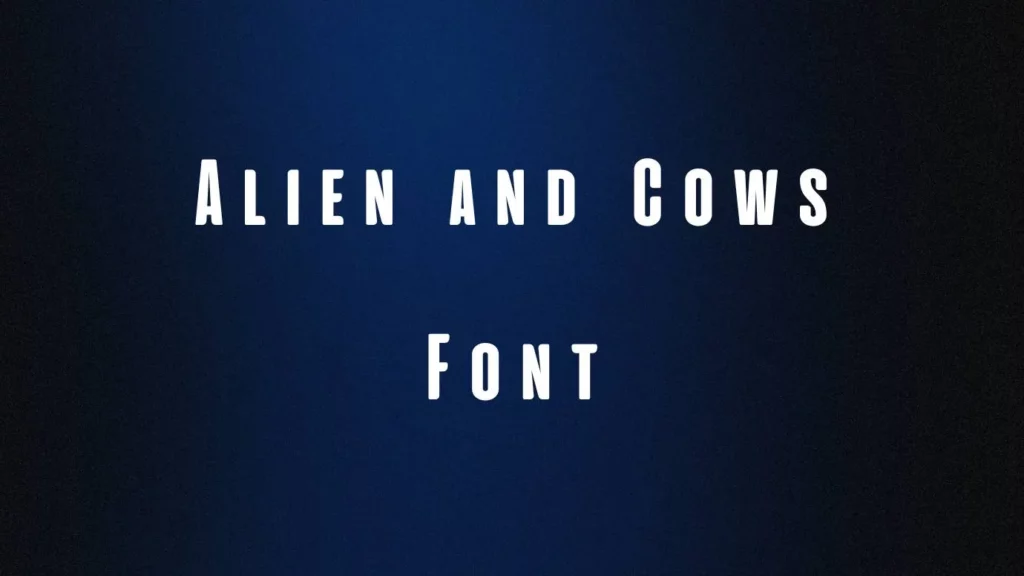
Here is an ultra-modern typeface Aliens and Cows Font that comes in a sans-serif font family. It comes with an ultra-condensed texture that has a sharp look and elegant texture. It has a similar texture to the current font. You can utilize it in any type of display project with ultimate designs and wonderful colors.
This gorgeous typeface was designed by one of the most famous foundries Zetafonts. They are famous for their unique work and special designs. It has a smooth design and one regular style that gives an anesthetic appearance to your projects. It comes in capital letters, small letters, punctuations, symbols, numbers, icons, currency, digits, and special characters.
View of Aliens and Cows Font
In a given picture you can see this eye-catchy typeface Aliens and Cows Font that comes in a sans-serif font family. The texture of this typography is smile and smooth which give an attractive look to your projects.
If we discuss the usage of this stunning typeface then you have to know that it has been used in different big projects. It has simple and smooth bold text that can be used in different kinds of screen projects. It has an ideal texture for display projects and printing projects.
You can use this geometric in different projects like logos, banners, posters, magazines, templates, layouts, T-Shirt designing, wallpapers, quotes, flyers, emblems, invoices, headings, newsletters, presentations, headlines, articles, graphic designs, newspapers, books, graphics, video games, and many other interesting projects.
It can be helpful in different business projects and you can design thumbnails for your YouTube channels. It also has a pairing nature that makes it more attractive to geo sans font as you can get new designs and combinations for your projects.
What is Aliens and Cows Font?
It is a unique sans-serif font that gives a stylish look to your projects. It comes in one regular style and elegant characters that make it worthy.
Who designed the Aliens and Cows texture?
This gorgeous typeface was designed by one of the most famous foundries Zetafonts. They are famous for their unique work and special designs.